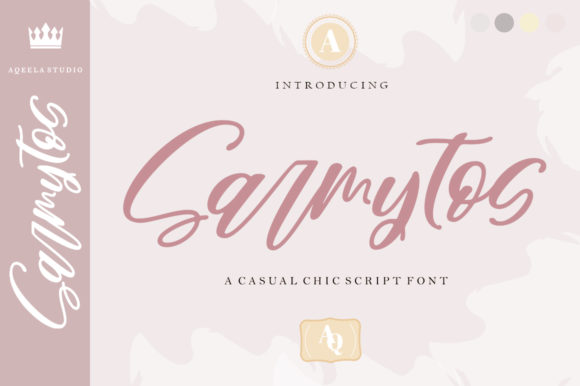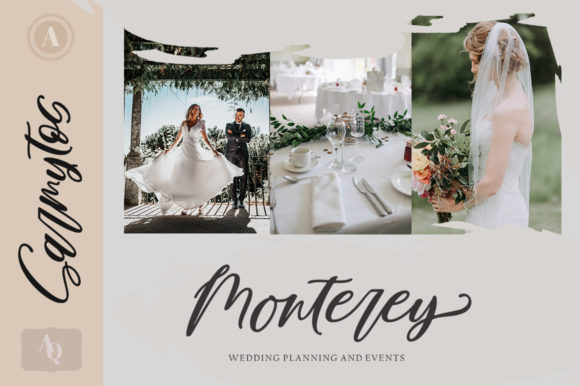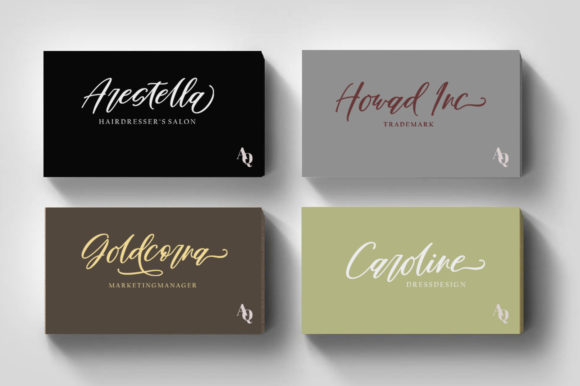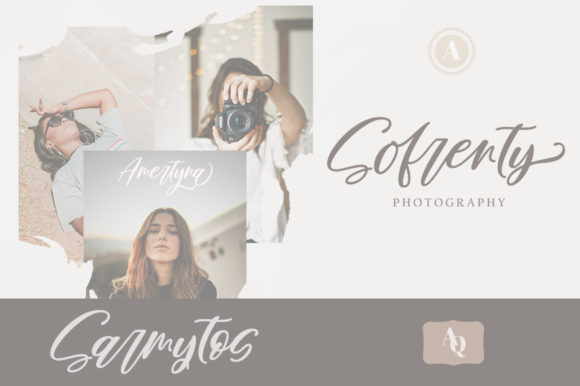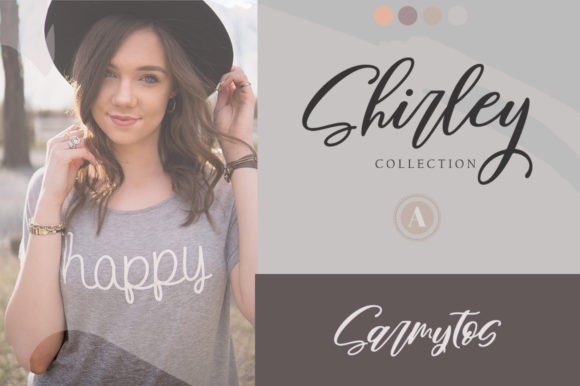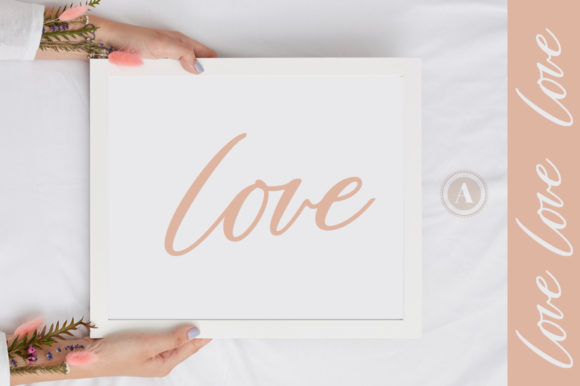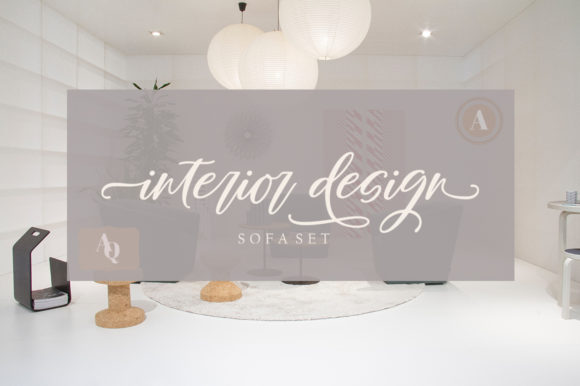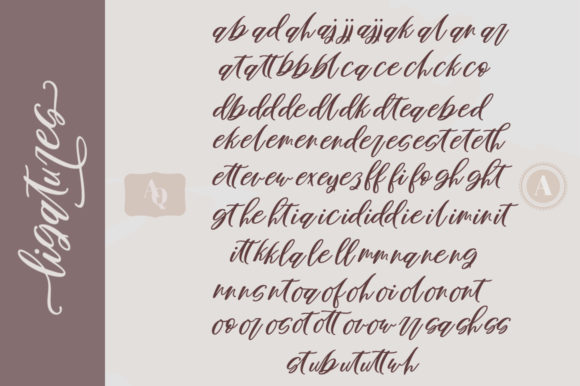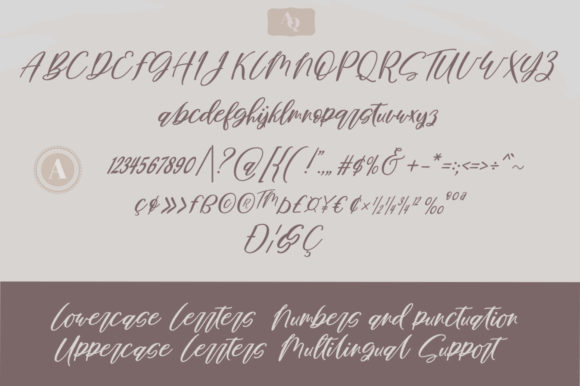
HomeScript FontsSarmytos Font Script Fonts Sarmytos Font FacebookXPinterestWhatsApp Sarmytos Font Poster 2 Sarmytos Font Poster 3 Sarmytos Font Poster 4 Sarmytos Font Poster 5 Sarmytos Font Poster 6 Sarmytos Font Poster 7 Sarmytos Font Poster 8 Sarmytos Font Poster 9 Sarmytos Font Poster 10 About Sarmytos Font Sarmytos is a modern and stylish handwritten font with a bold feel. It will add a unique charm to any design idea. DOWNLOAD ON CREATIVE FABRICAThis font is sold and delivered by Creative Fabrica. Font Canyon may earn a commission if you buy through this link. People also explored Geminies Font Quenyland Font Holliday Font Monday Font Reghinatha Script Font Sydney Wuttenbost Font Aqua Lagoon Font Crazy Harold Alone Font 302 0 TagsSarmytos Font Previous articleRiogrande FontNext articleBigbang Font LEAVE A REPLY Cancel reply Comment: Please enter your comment! Name:* Please enter your name here Email:* You have entered an incorrect email address! Please enter your email address here Website: Save my name, email, and website in this browser for the next time I comment. Personal Use Free The Fourth Avenue Personal Use Free Read more about this font Tide Personal Use Free Read more about this font Antaro Personal Use Free Read more about this font Fuixg Personal Use Free Read more about this font BLOG Elegant Wedding Invitation Fonts – Handwritten & Script Fonts Elegant Wedding Invitation Fonts Your wedding day is one of the most important moments of your life, and every detail matters—including your invitation design. Our... Free vs Paid Fonts: Why Investing in Premium Fonts Is Worth It Top 7 Google Fonts Alternatives for Faster and Privacy-Friendly Web Design (2025) Transform Your Website: Elevate Your Typography with 7 Best Web Font Generators